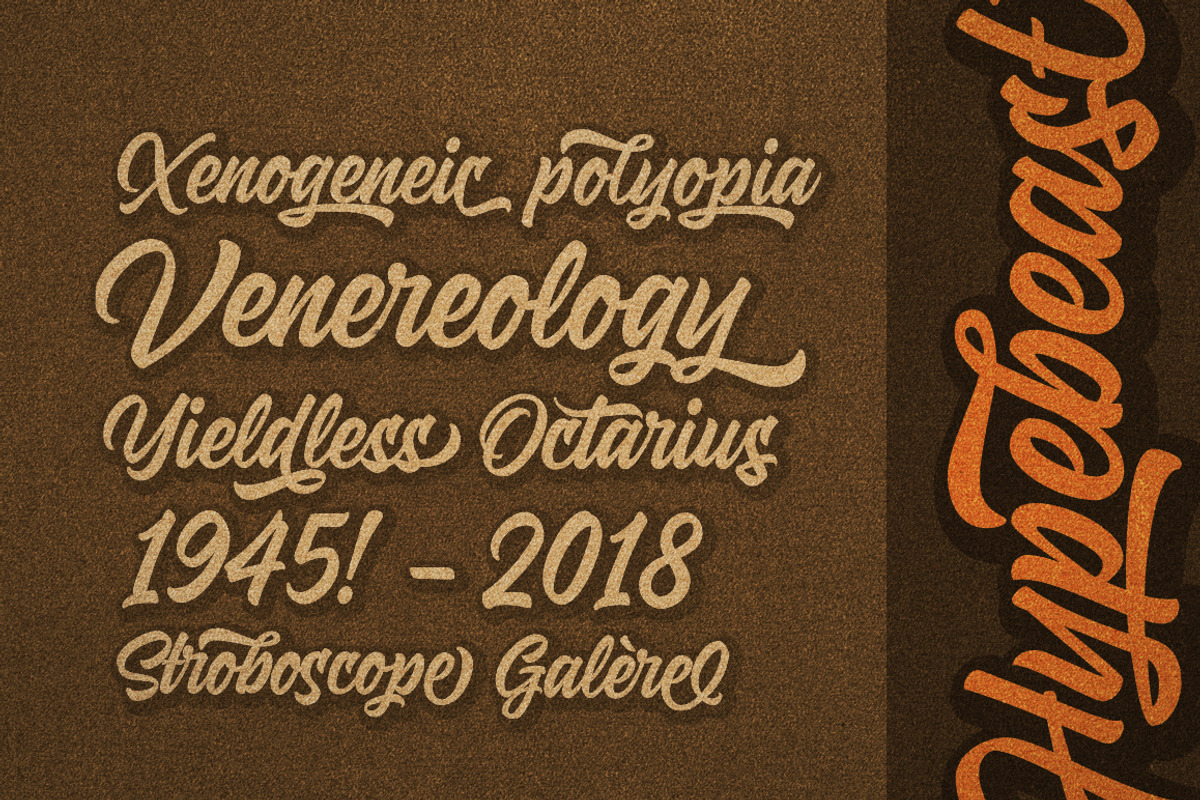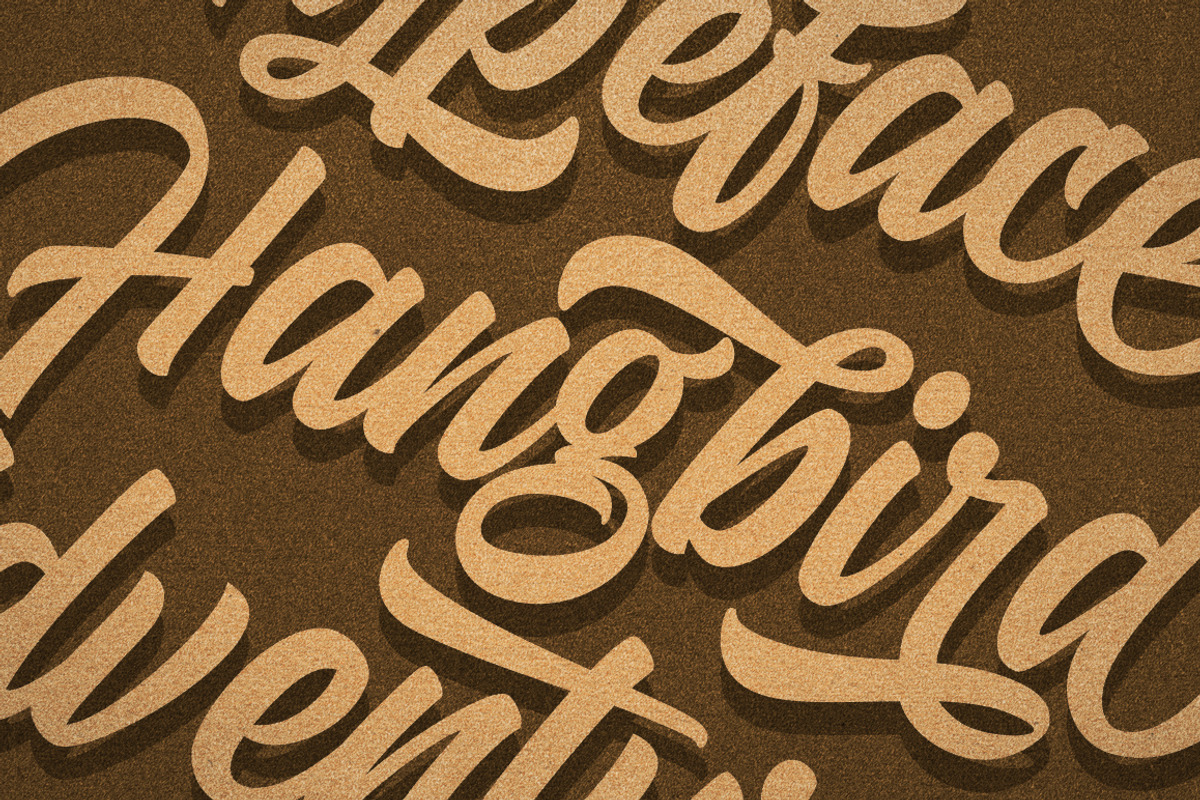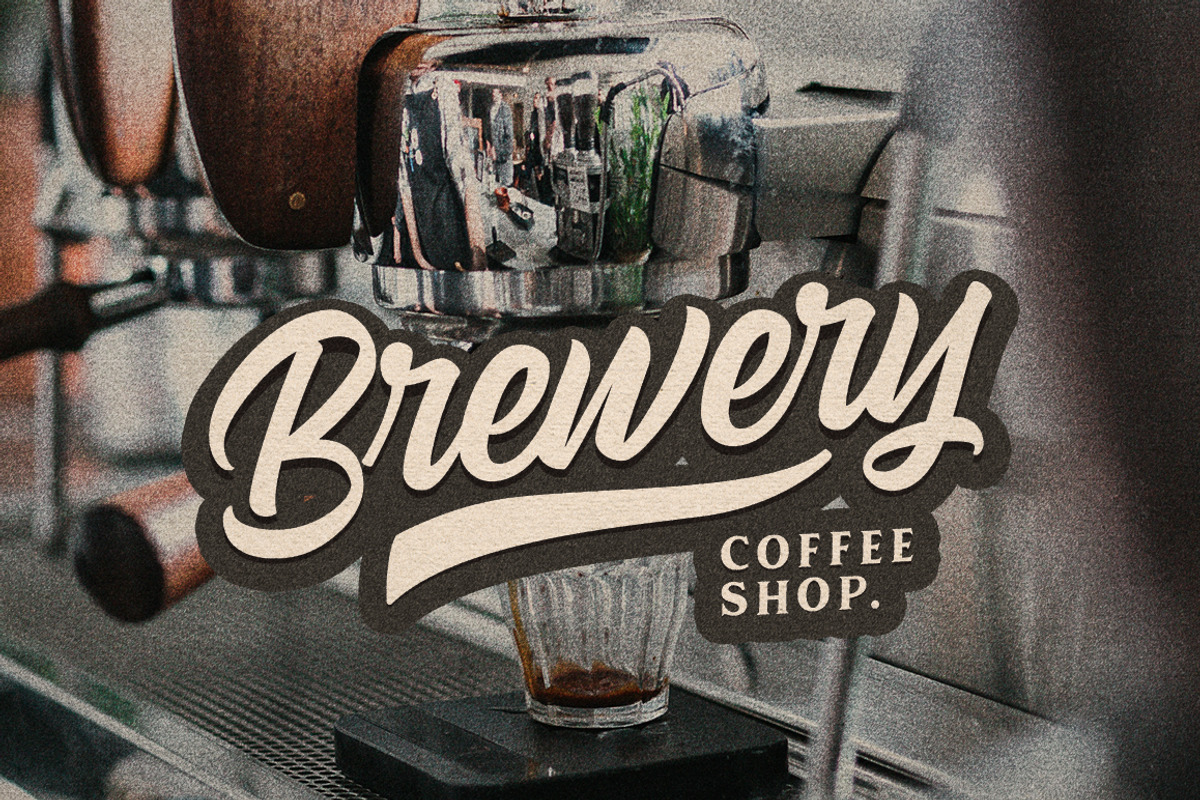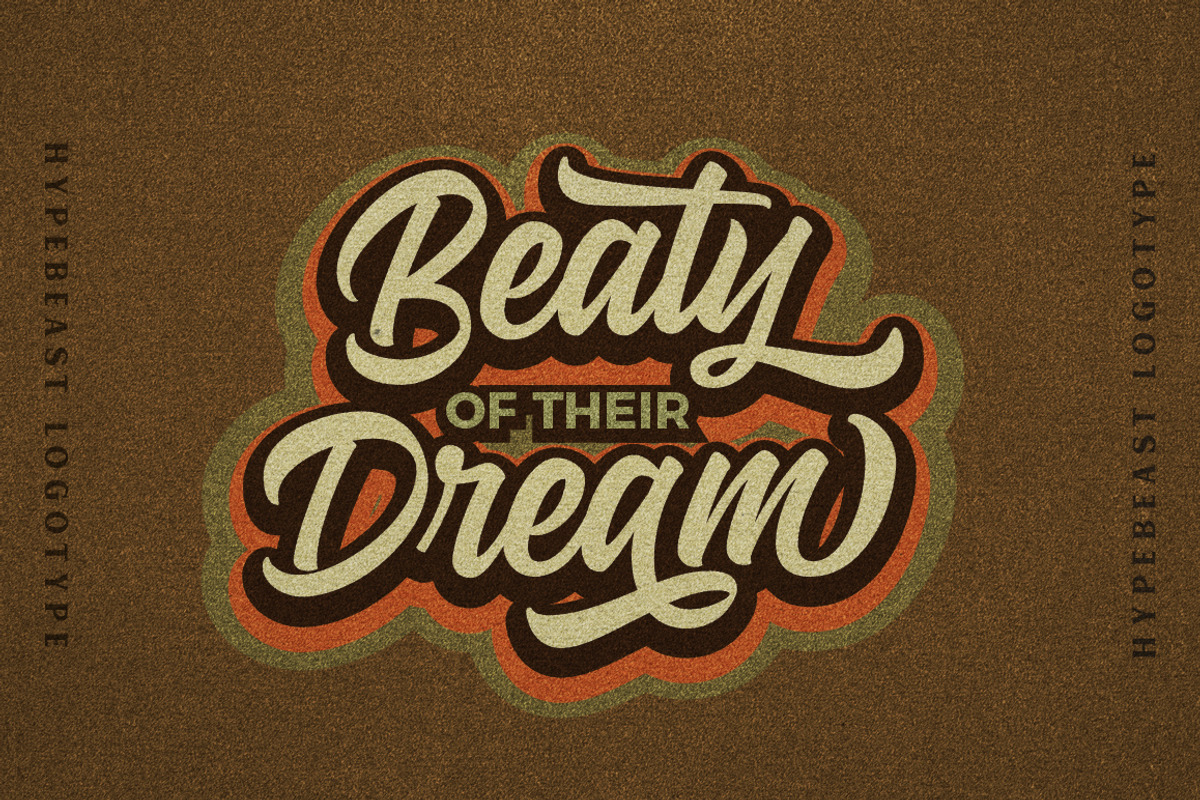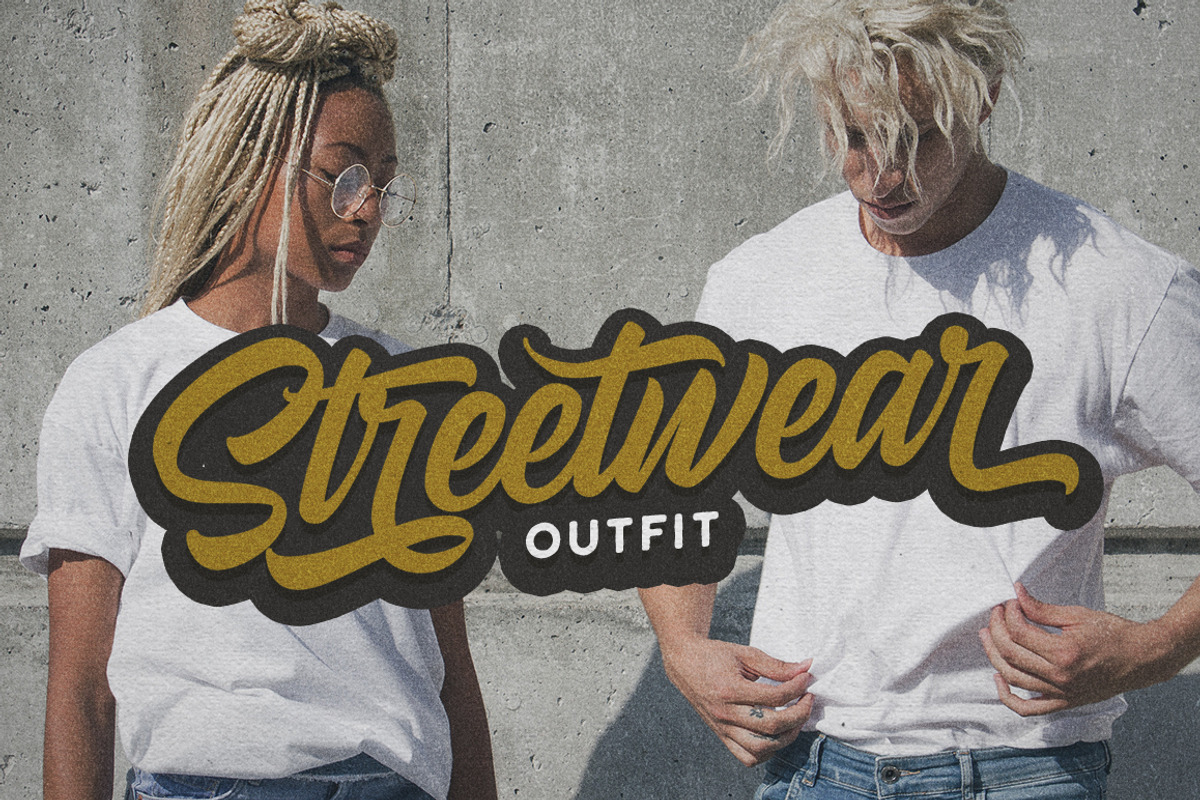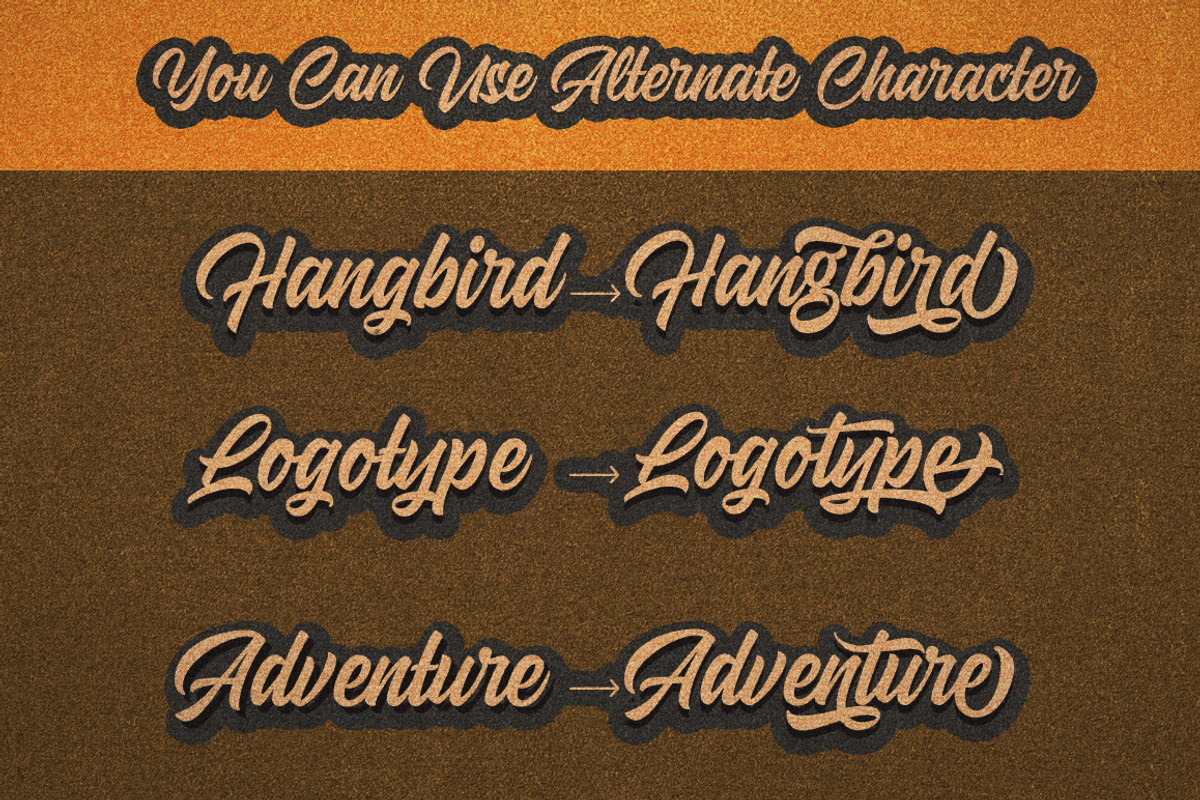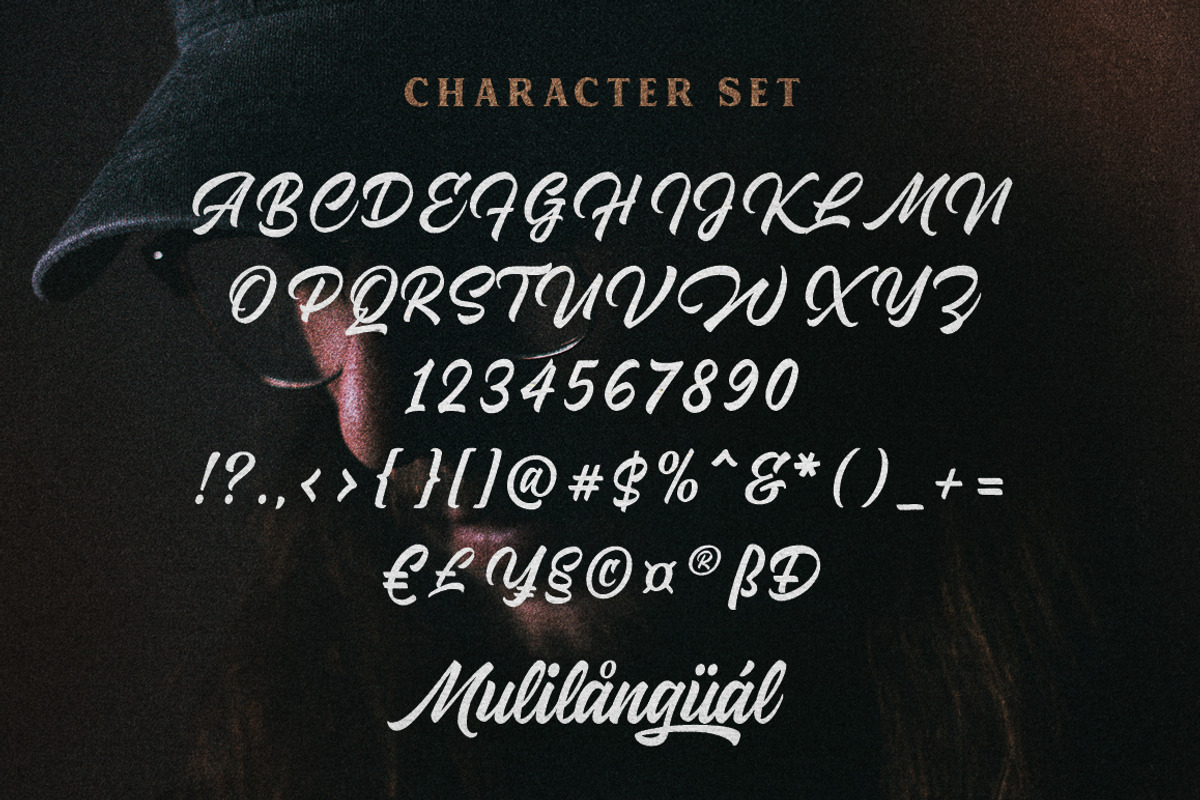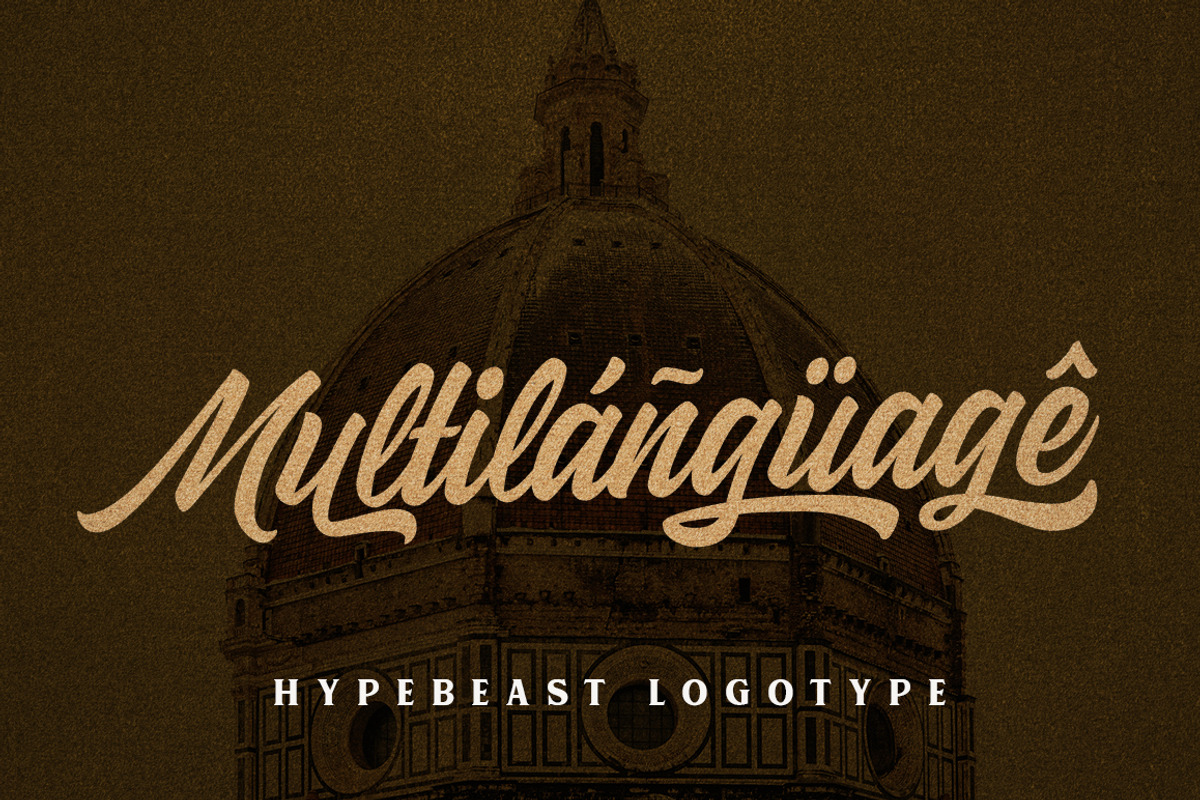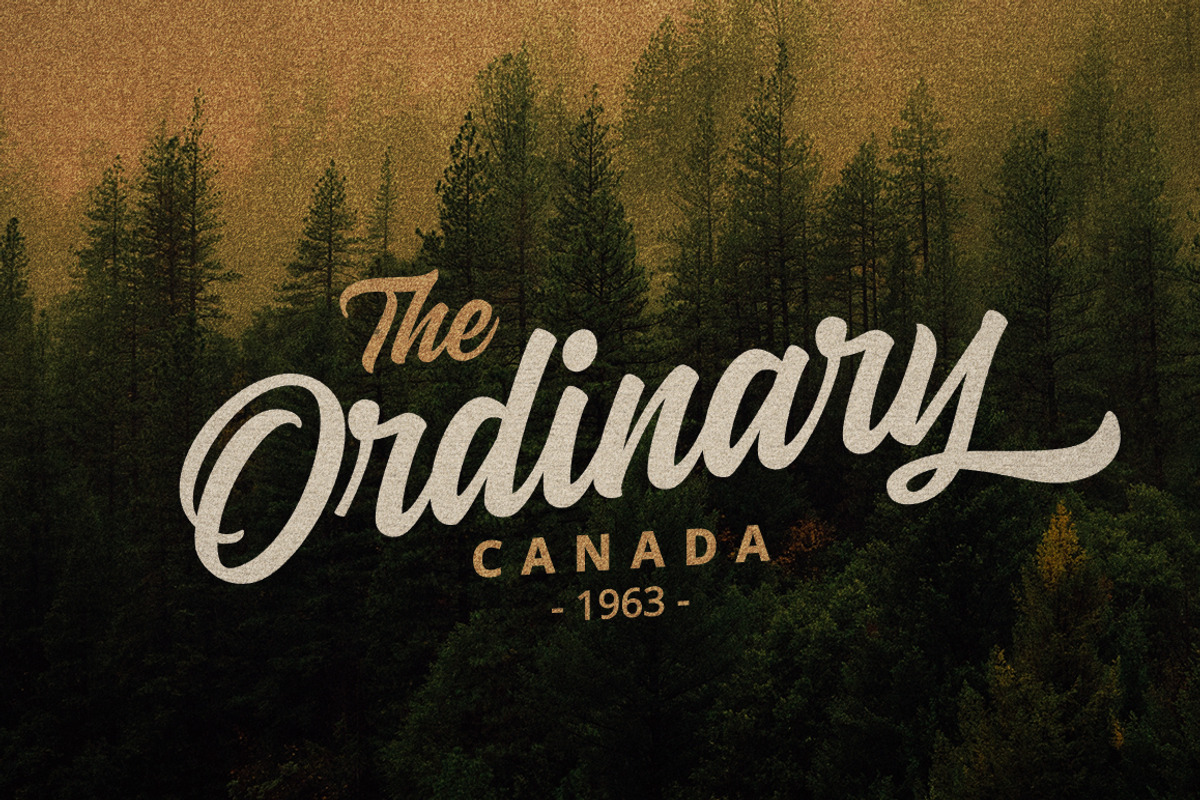
Hypebeast Script ⚡️
Hypebeast Script Inspired by contemporary fashion and streetwear and combination with Hand Lettering style. I'm made with personality touch every single curve. I hope this can make inspire you from your work. and a very bouncy baseline It has a perfectly paired complimentary marker font , and a super handy set of bonus Swash. Ideal for logos, handwritten quotes, product packaging, header, poster, merchandise, social media & greeting cards.